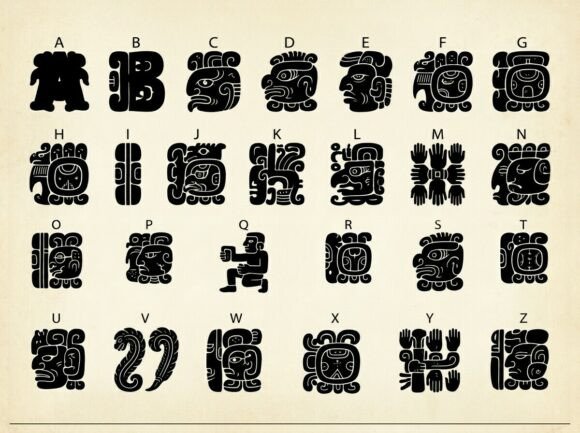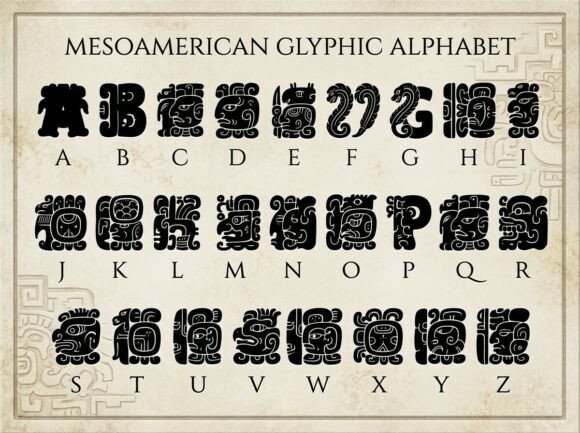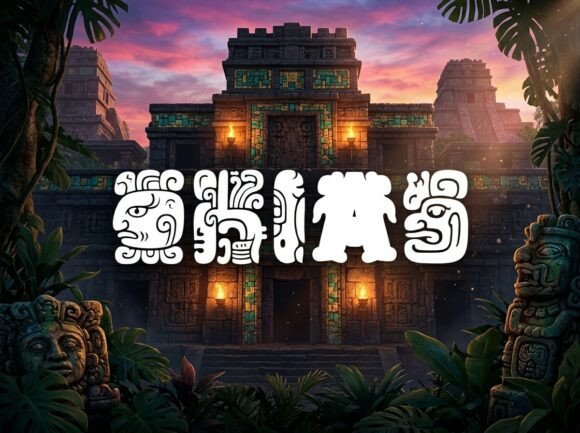
The Elias Font: A Stunning Decorative Display Font to Elevate Your Designs
Have you ever been working on a project, pouring your heart and soul into it, and then suddenly realized that something is just not quite right? The design looks great, the colors are on point, but the font… oh, the font is just not doing it justice. I remember a project I worked on last year, where I was struggling to find the perfect font to match my client’s brand. That’s when I stumbled upon the Elias Font, and it completely transformed my design.
A Personal Review: What I Love About Elias Font
So, what makes Elias Font so special? Here are a few things that I absolutely love:
- ✨ Unique artistic elements: This font is truly one-of-a-kind, with a strong visual personality that sets it apart from more traditional fonts.
- ✅ Versatility: Whether you’re creating bold headlines, artistic logos, or creative packaging, Elias Font is up to the task.
- 💯 Professional finish: Despite its decorative nature, Elias Font still manages to look polished and professional, making it perfect for clients who want to make a statement.
Of course, no font is perfect, and Elias Font is no exception. Here are a few things to keep in mind:
- ⚠️ Elias Font is an ALL-CAPS (Uppercase Only) display typeface, which means it doesn’t include lowercase letters. This might be a limitation for some designers, but it’s actually a deliberate design choice to make every letter a work of art.
- 🤔 Some users might find that the font is a bit finicky when it comes to kerning and spacing, but this can usually be adjusted in most design software.
The Backstory Behind Elias Font
Elias Font was designed with one goal in mind: to create a stunning decorative display font that would help designers break away from the ordinary. The font’s creator was inspired by the art of typography and the power of creative expression. The result is a font that is both visually striking and highly versatile.
| Is Elias Font suitable for body text? | No, Elias Font is a display font designed for headlines, logos, and decorative initials. It’s not recommended for body text due to its decorative nature and lack of lowercase letters. |
| Can I modify Elias Font to add lowercase letters? | While it’s technically possible to modify the font, it’s not recommended. The font’s creator designed it specifically as an ALL-CAPS display typeface, and altering it could compromise its intended use and aesthetic. |